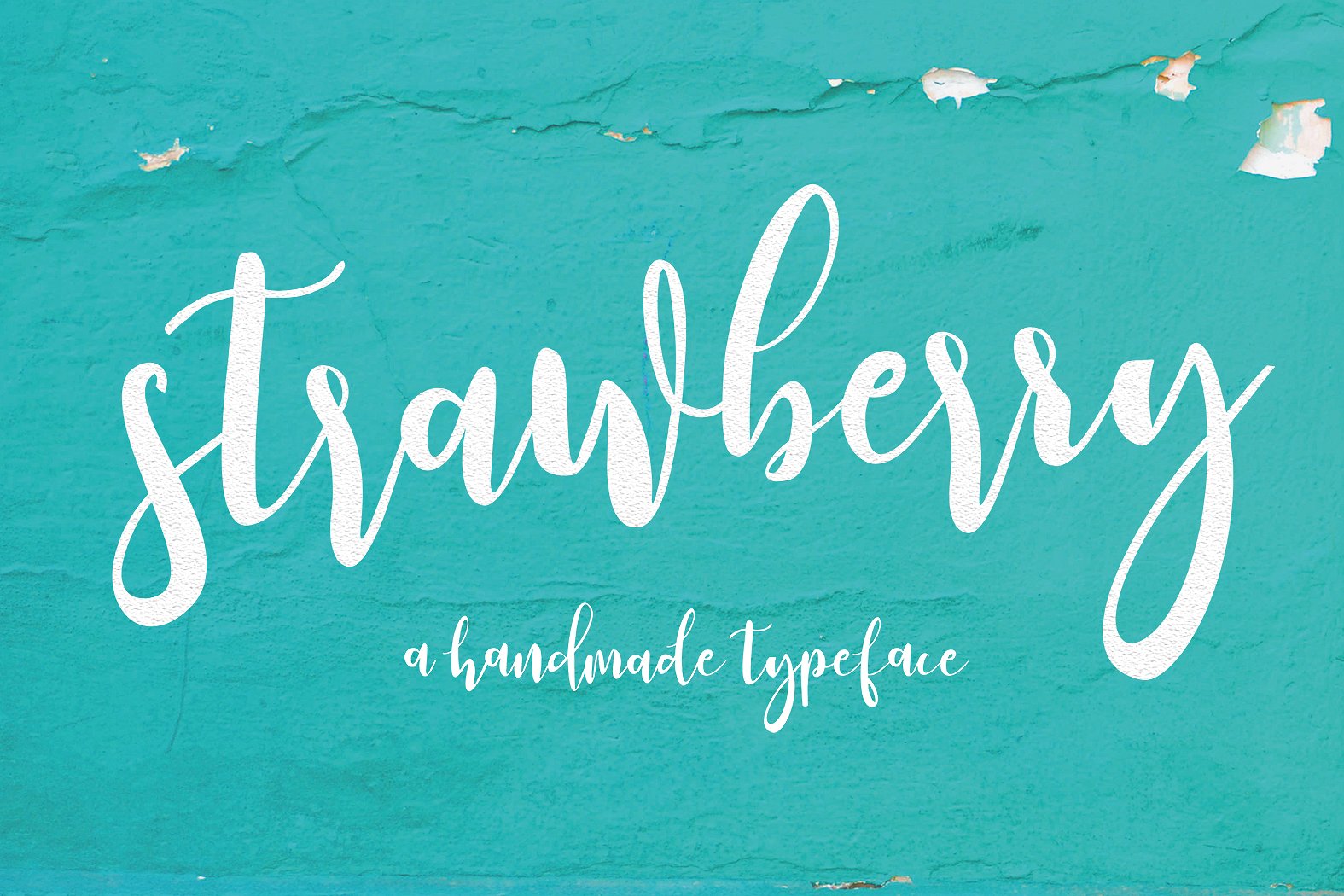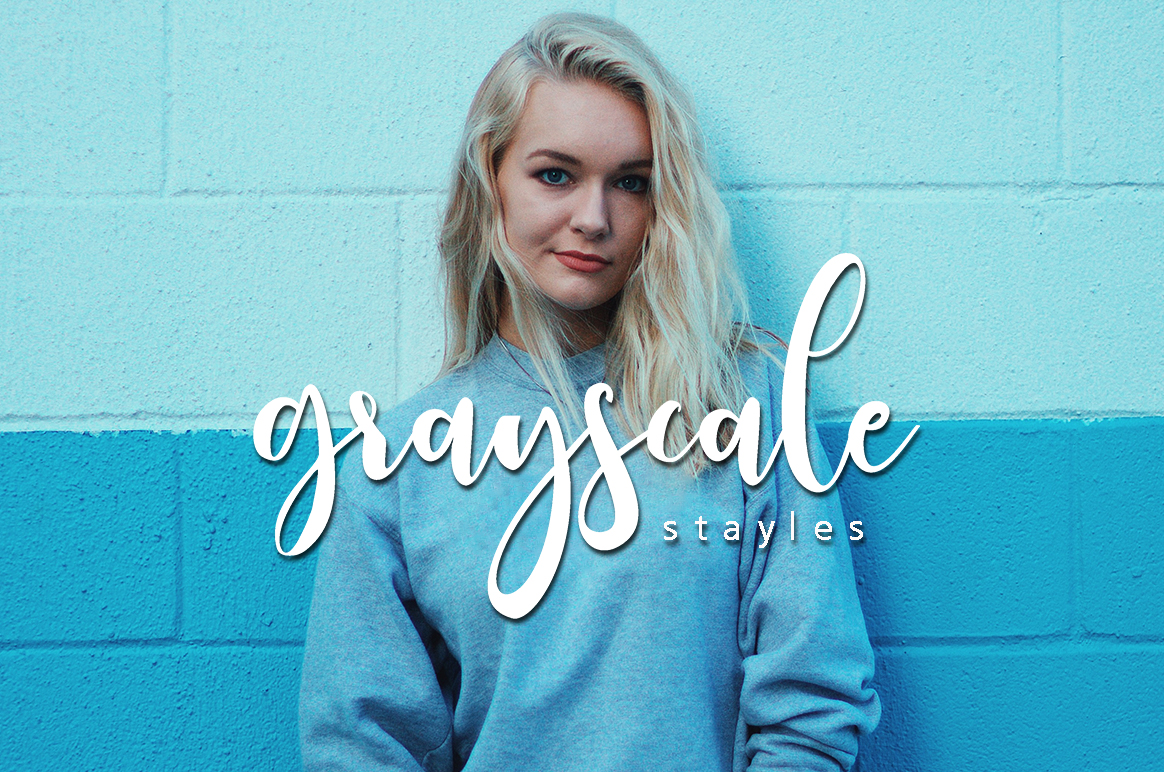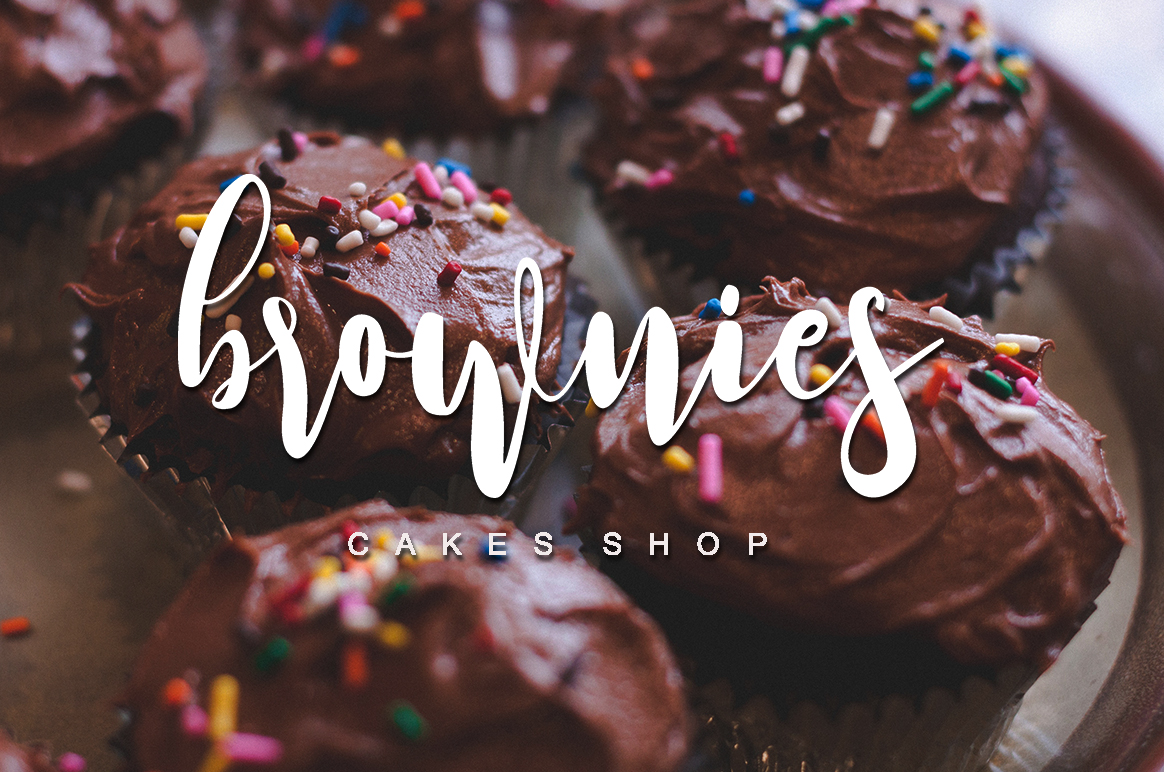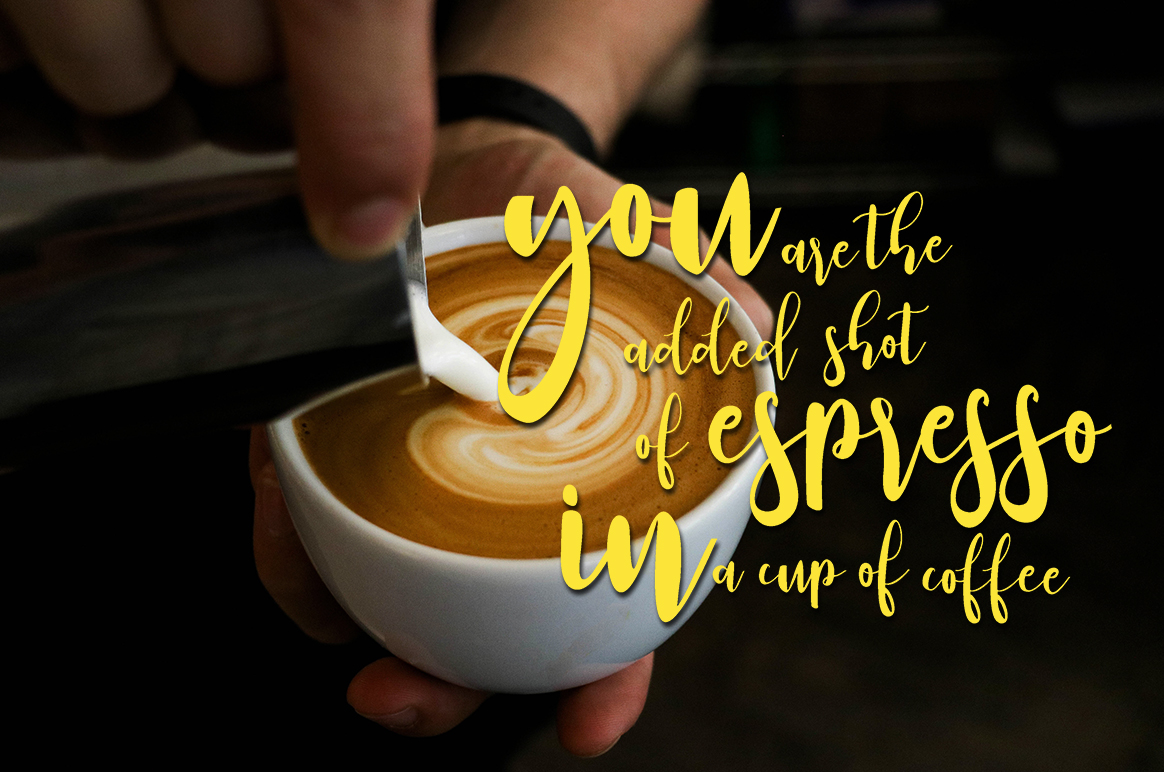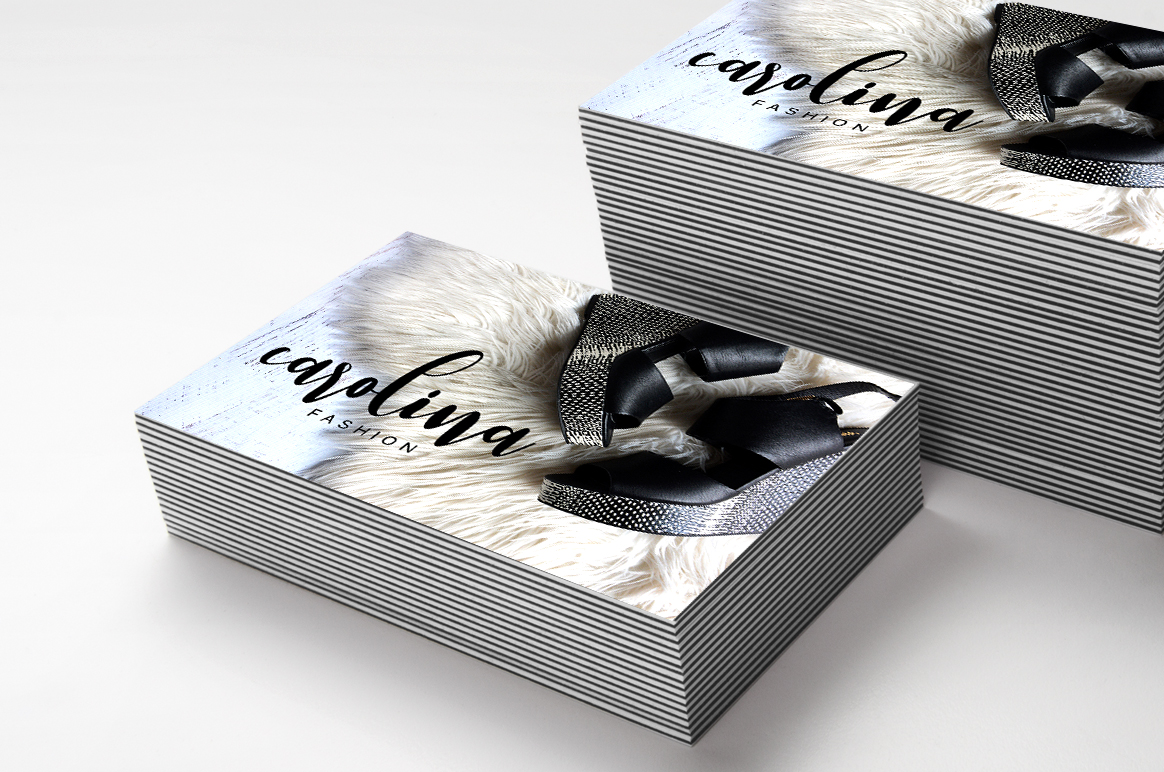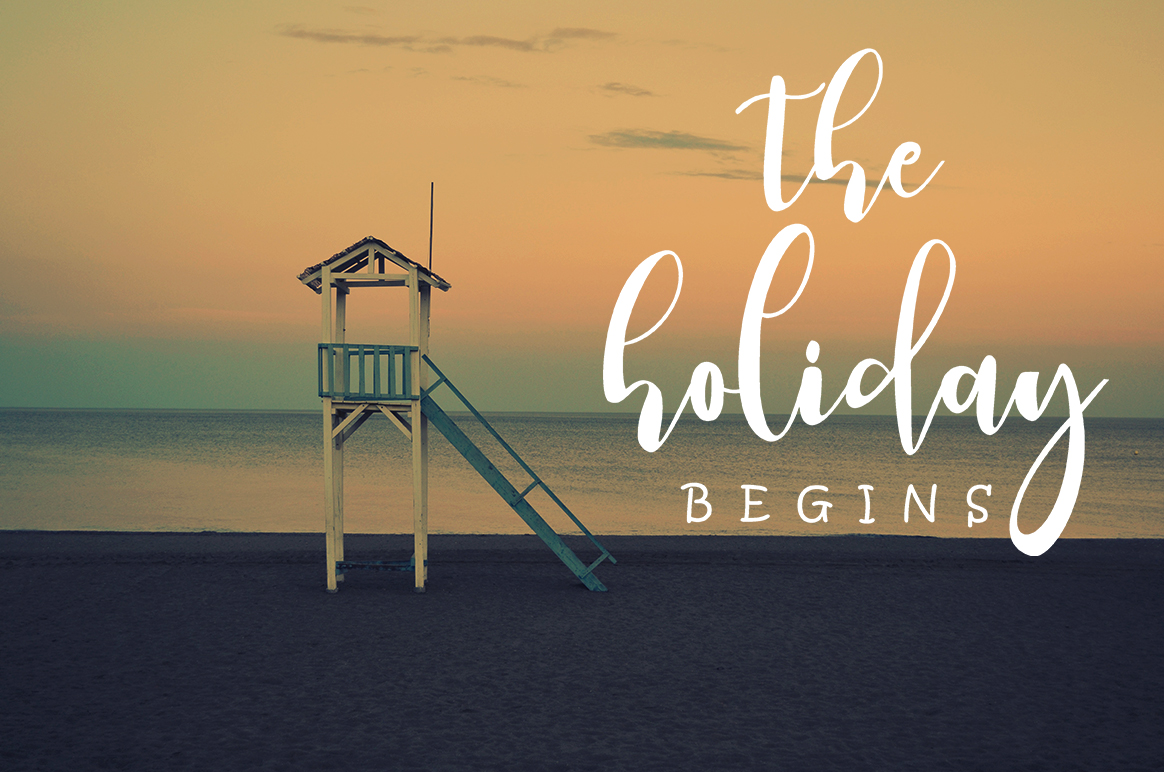
Strawberry Script Font
About Strawberry Script Font
With an irregular baseline and expressive strokes, Strawberry is a beautiful and striking script font that will get your designs noticed.  Modern and on trend, Strawberry is a beautifully designed font.